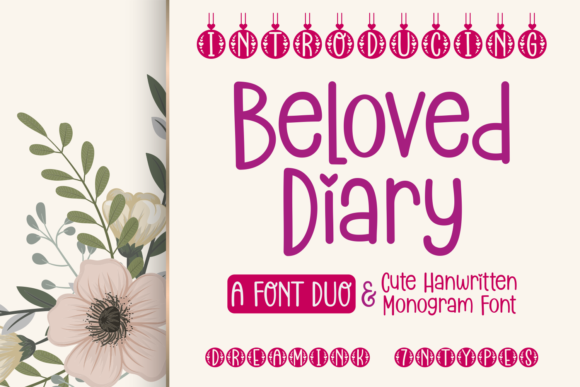
Embrace the allure of Beloved Diary, a captivating script font that dances with charm and grace. Step into a world of elegance and creativity, where your words come alive with a touch of whimsy and joy. Beloved Diary is not just a font; it's an experience that will elevate your designs to new heights of beauty.
Indulge in the delicate strokes and playful curves of Beloved Diary, a font that exudes a sense of timeless romance. Its enchanting characters, reminiscent of heartfelt letters penned in a secret diary, add a touch of intimacy to your creations. With Beloved Diary, your designs will whisper secrets, share stories, and spark imaginations.
Beloved Diary is a versatile artist, equally at home in the realm of wedding invitations, greeting cards, branding, and social media posts. Its graceful lines and flowing rhythm bring a touch of elegance to any project, creating a visual symphony that captures hearts and leaves a lasting impression.
Unlock the power of personalization with Beloved Diary's monogram capabilities. Create unique and meaningful designs that celebrate individuality and connection. Monograms crafted with Beloved Diary become treasured keepsakes, carrying sentiments of love, friendship, and cherished memories.
Beloved Diary isn't just a font; it's a gateway to a world of creativity and self-expression. Let your imagination soar as you explore the endless possibilities of this enchanting script. From heartfelt messages to whimsical illustrations, Beloved Diary transforms your designs into captivating works of art.
Don't settle for ordinary fonts. Embrace the magic of Beloved Diary, a script that weaves a tapestry of emotions and transforms your designs into extraordinary expressions of beauty and joy. Download Beloved Diary today and embark on a creative journey that will leave you breathless.